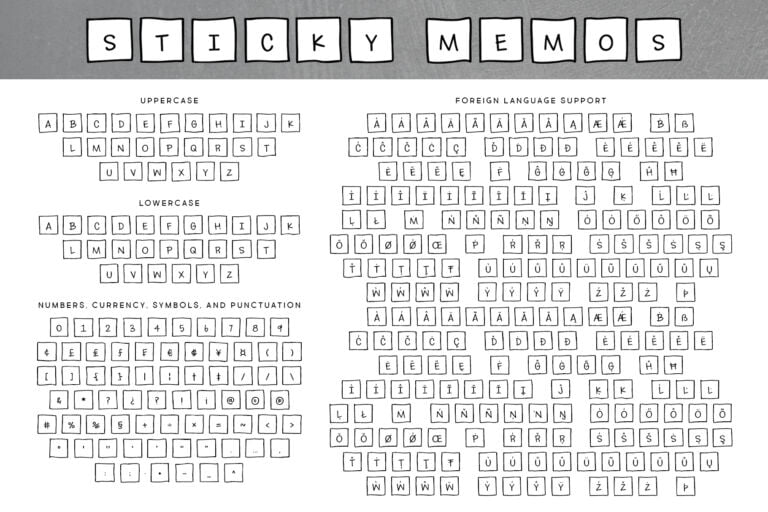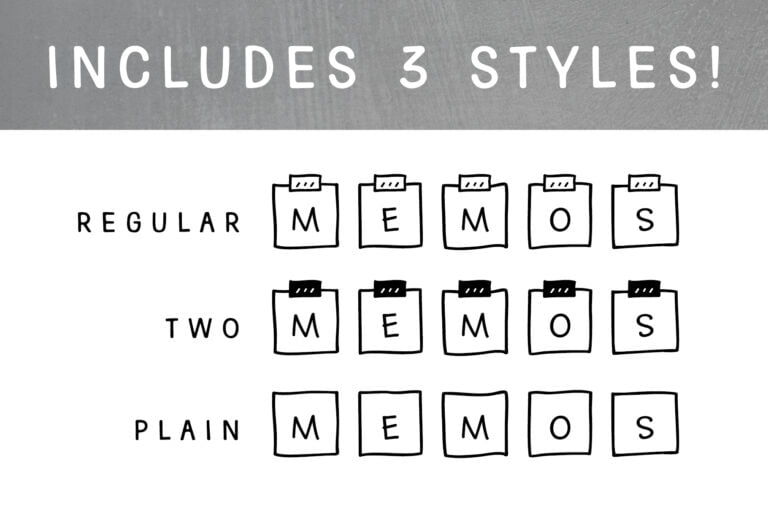
Sticky Memos Font Family
The Sticky Memos font family is a cute sticky note font in three styles: regular (sticky notes with tape), two (sticky notes with tape filled in), and plain (sticky notes with no tape). Use it to add some fun to your worksheets and planners!
Font contains over 300 characters and supports most Latin-based languages.